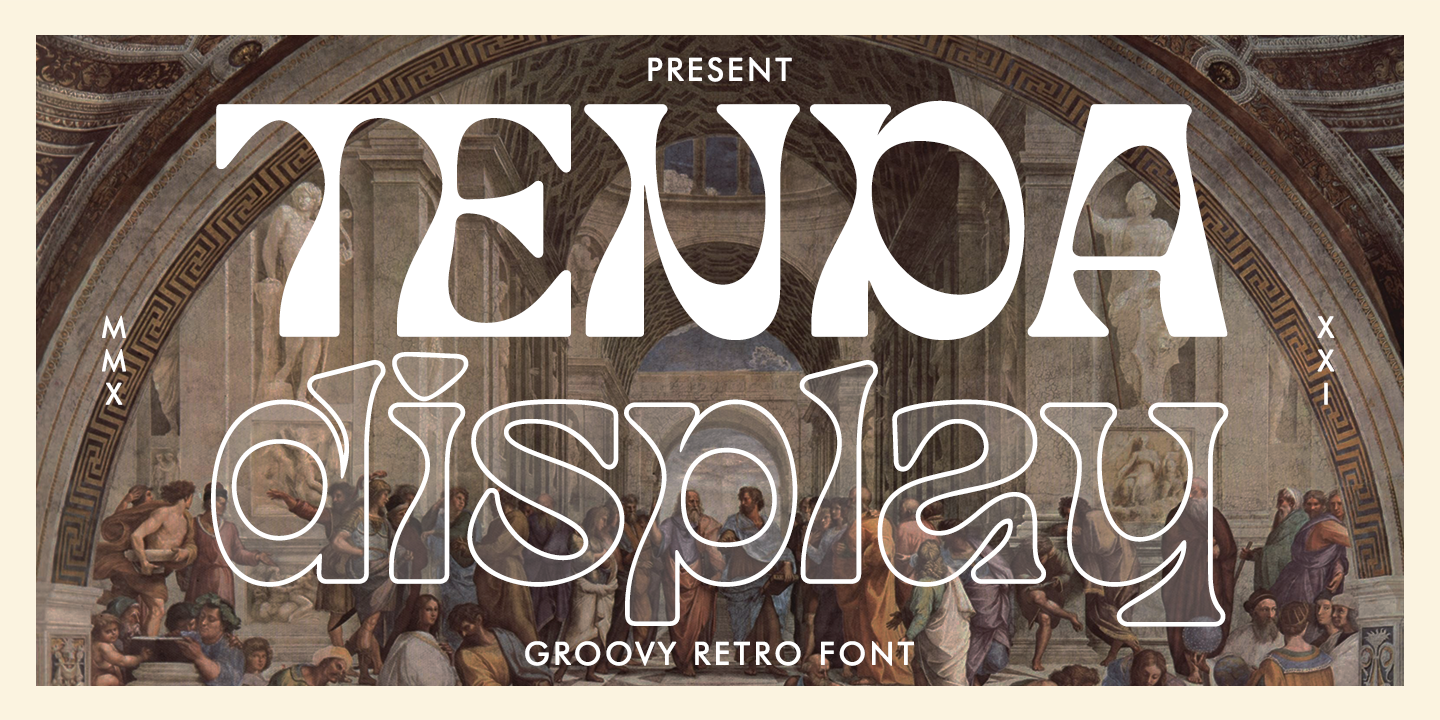
Tenda Display Font is a captivating and distinctive typeface, ideally suited for designs that demand a fresh, modern, and often adventurous aesthetic. Imagine it commanding attention on the cover of an outdoor lifestyle magazine, providing a robust yet inviting presence for eco-friendly product packaging, or adding a unique, handcrafted feel to branding for a travel agency. Its strong forms and often organic or slightly irregular character details make it exceptionally effective for striking logos, large-format posters, and any digital or print media where a strong visual identity with a touch of nature or artisanal quality is key. From festival branding to rustic café signage, this font delivers a memorable and visually compelling punch.
What makes Tenda Display Font so exciting is its ability to blend modern design with a tangible sense of character, often reminiscent of handcrafted or natural elements. It’s designed to stand out, offering an aesthetic that can convey authenticity, adventure, or a connection to the outdoors. This isn't a generic font; it's a typeface that brings a unique personality to your message. It evokes feelings of reliability, warmth, and a touch of the unconventional, making it an ideal choice for brands that want to communicate a sense of genuine craftsmanship or a down-to-earth yet stylish identity. Its distinctive structure ensures high legibility, even when used for dramatic effect.
The Tenda Display Font family typically offers a focused yet impactful range of weights and styles, optimized for its role as a display font. While it might not have the extensive variations of a large text family, you can generally expect to find options such as Regular and Bold, sometimes accompanied by unique stylistic alternatives or all-caps versions that further enhance its distinctive appeal. This curated selection is designed to maximize the font's visual impact and ensure its unique character shines through in prominent applications, allowing designers to create compelling headlines and eye-catching designs.